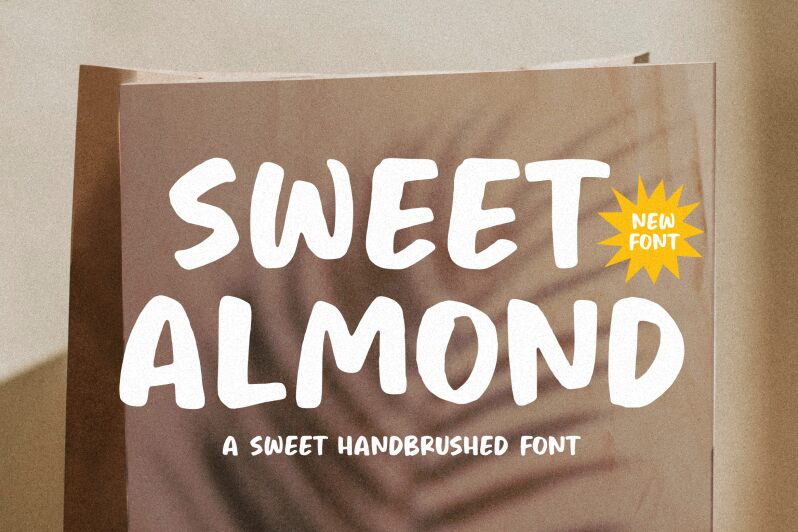
Sweet Almond
Sweet Almond font by Letterative Studio combines the dynamic flair of brush style with a bold, striking appearance. This free font exudes energy and creativity, capturing attention with its handcrafted charm and smooth strokes. Perfect for projects that demand a personal touch, Sweet Almond enhances posters, logos, and social media graphics with its artistic vibe.
Download this brush font to infuse your designs with a lively spirit. Its bold weight ensures readability and impact, making it ideal for headlines and branding materials. Whether crafting an inviting storefront sign or adding flair to invitations, Sweet Almond offers versatility and style that captivate audiences in any context.
Elevate your creative projects by leveraging the Sweet Almond font—a perfect blend of artistry and clarity.